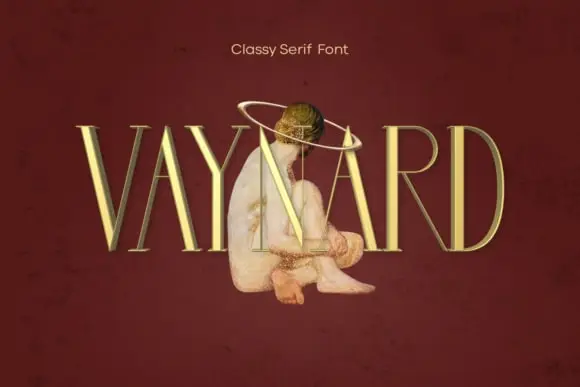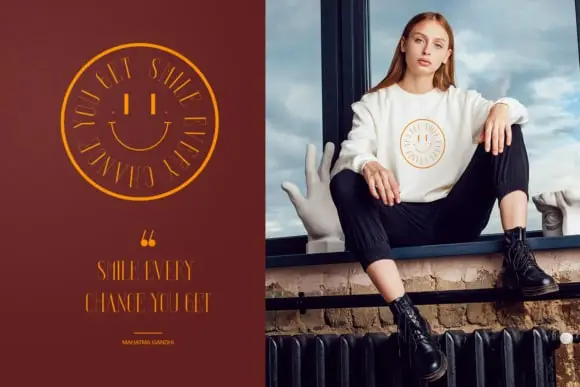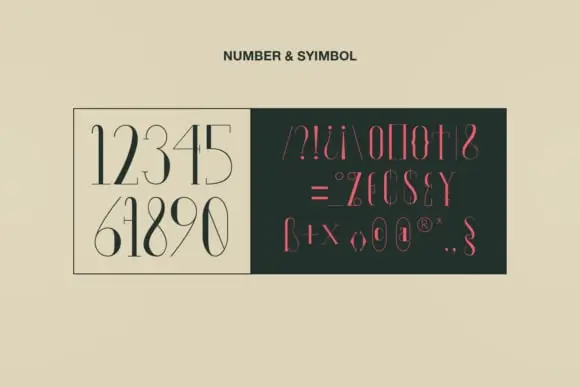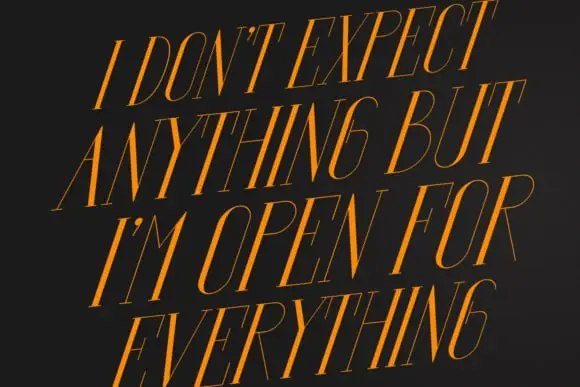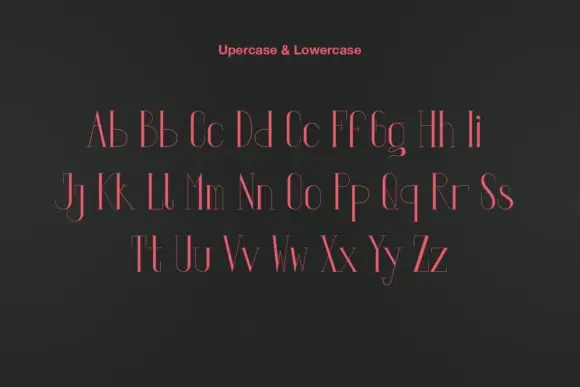
Vaynard Font
The Vaynard Font is a modern typeface designed to bring elegance and sophistication to your projects. With its unique blend of geometric shapes and smooth curves, this font is perfect for a variety of applications, including branding, logos, web design, and print materials.
• Multiple weights available for versatility
• Uppercase and lowercase letters, numerals, and punctuation
• Ideal for branding projects, including logos and business cards
• Great for website headings and body text
• Use in print materials like brochures and flyers for a polished look